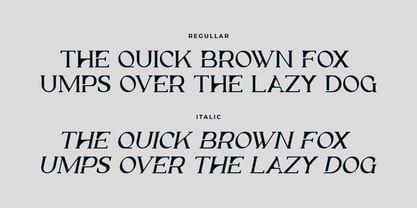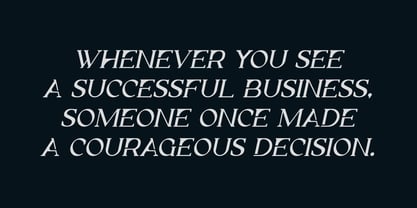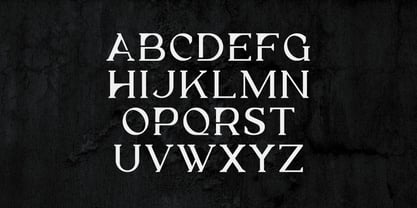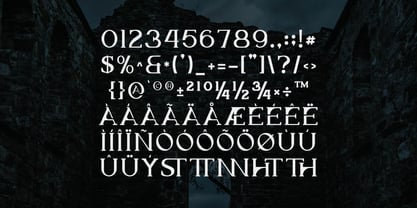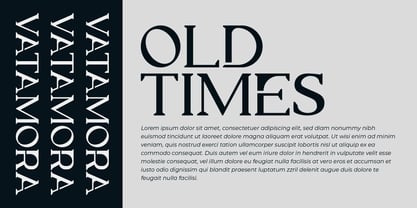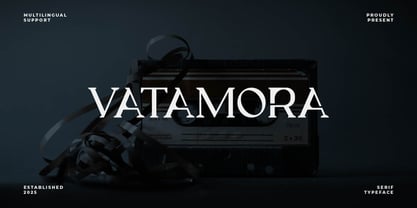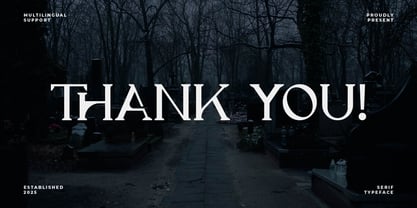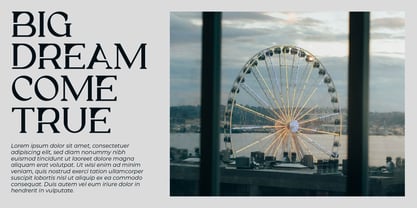
Vatamora
La familia tipográfica Vatamora fue diseñada por Iwan Alwan y publicada por Artiveko. Vatamora contiene 2 estilos y opciones de paquete familiar. Más información sobre esta familia
Vatamora is a sophisticated serif font crafted with elegant curves and refined details. Blending classic charm with a modern touch, Vatamora is perfect for luxury branding, editorial design, invitations, and high-end packaging. Featuring multilingual support, ligatures, and alternates, this versatile typeface brings a timeless and graceful aesthetic, making it an excellent choice for projects that require sophistication and professionalism.
Diseñadores: Iwan Alwan
Fundición: Artiveko